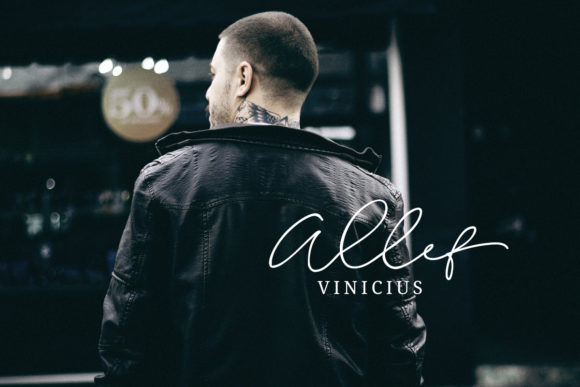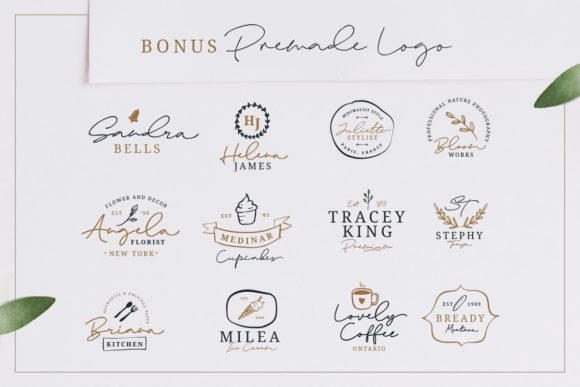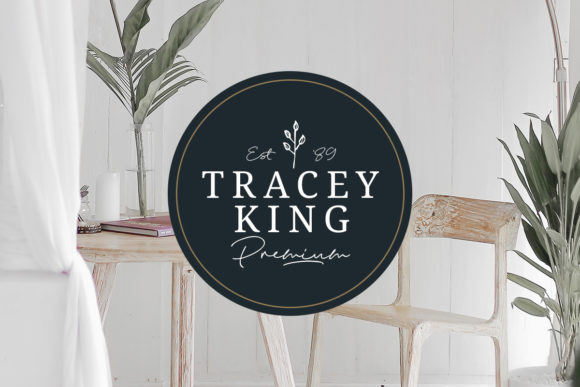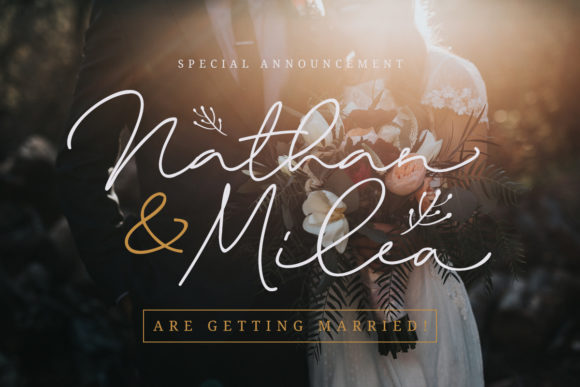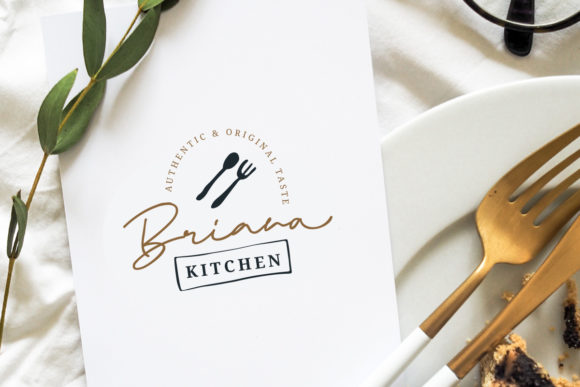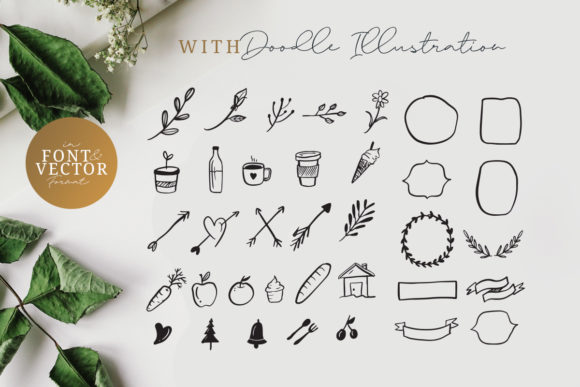
Elaine Hanks Font: A Beautiful and Charming Handwritten Font
Full of authenticity, Elaine Hanks is a beautiful and charming handwritten font. It will turn any design project into a true stand out! If you’re a designer or crafter looking for a unique and eye-catching font to elevate your work, look no further than Elaine Hanks. In this article, we’ll dive into the details of this stunning font and explore its features, benefits, and uses.
What is Elaine Hanks Font?
Elaine Hanks Font is a handwritten font designed to bring a touch of elegance and sophistication to your design projects. With its flowing lines and natural curves, this font is perfect for creating beautiful and eye-catching text. Whether you’re working on a branding project, a craft project, or simply want to add some personality to your digital content, Elaine Hanks Font is an excellent choice.
Features of Elaine Hanks Font
Elaine Hanks Font comes with a range of features that make it a versatile and practical choice for designers and crafters. Some of its key features include:
- Handwritten style: Elaine Hanks Font has a beautiful, handwritten style that adds a touch of personality to any design project.
- Unique letterforms: Each letterform in Elaine Hanks Font is unique and carefully crafted to create a sense of authenticity and charm.
- Flowing lines: The font features flowing lines and natural curves that give it a sense of movement and fluidity.
- Multilingual support: Elaine Hanks Font supports multiple languages, making it a great choice for designers and crafters working on international projects.
Benefits of Using Elaine Hanks Font
So why should you choose Elaine Hanks Font for your design projects? Here are just a few benefits of using this beautiful font:
- Adds personality to your designs: Elaine Hanks Font adds a touch of personality and whimsy to any design project, making it perfect for brands and businesses looking to stand out.
- Enhances creativity: The font’s unique letterforms and flowing lines can inspire creativity and help you think outside the box.
- Versatile: Elaine Hanks Font can be used for a wide range of design projects, from branding and advertising to crafting and DIY projects.
- Easy to read: Despite its handwritten style, Elaine Hanks Font is easy to read and understand, making it perfect for body text and headlines.
Uses of Elaine Hanks Font
Elaine Hanks Font is a versatile font that can be used for a wide range of design projects, including:
- Branding and advertising: Use Elaine Hanks Font to create eye-catching logos, business cards, and ad campaigns that stand out.
- Crafting and DIY projects: Add a touch of personality to your crafting and DIY projects, such as handmade cards, gift tags, and scrapbooking.
- Digital content: Use Elaine Hanks Font to add some personality to your digital content, such as blog posts, social media graphics, and email newsletters.
- Wedding and event planning: Elaine Hanks Font is perfect for creating beautiful wedding invitations, party decorations, and other event materials.
Tips for Using Elaine Hanks Font
Here are a few tips for getting the most out of Elaine Hanks Font:
- Use it sparingly: While Elaine Hanks Font is beautiful, it can be overwhelming if used too much. Use it sparingly to add emphasis and personality to your designs.
- Pair it with other fonts: Elaine Hanks Font pairs well with other fonts, such as sans-serif fonts and serif fonts. Experiment with different pairings to find the perfect combination.
- Experiment with colors: Elaine Hanks Font looks great in a range of colors, from bold and bright to soft and pastel. Experiment with different colors to find the perfect look for your design.
Elaine Hanks Font is a beautiful and charming handwritten font that can add a touch of personality and elegance to any design project. With its unique letterforms, flowing lines, and multilingual support, this font is perfect for designers and crafters looking to create eye-catching and effective designs. Whether you’re working on a branding project, a craft project, or simply want to add some personality to your digital content, Elaine Hanks Font is an excellent choice.